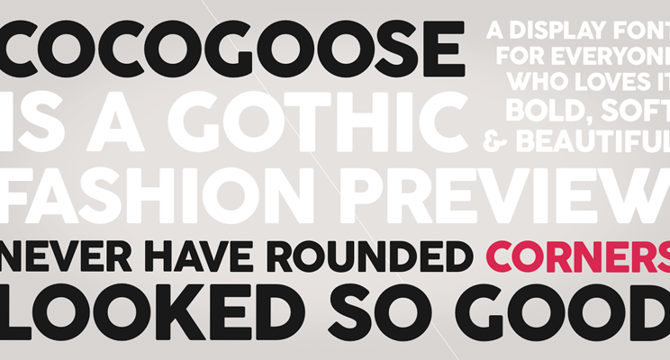
<ul data-eligibleForWebStory="false">Cocogoose, designed by Zetafonts, is a bold, modern, and stylish sans-serif font family available in 15 styles.The font stands out for its friendly yet professional vibe with subtle rounded edges that add a human-like warmth.Cocogoose is versatile and can be used for branding, logos, posters, advertising, web design, and editorial design.It has been popularly used by startups, established companies, and designers seeking a clean yet distinctive look.